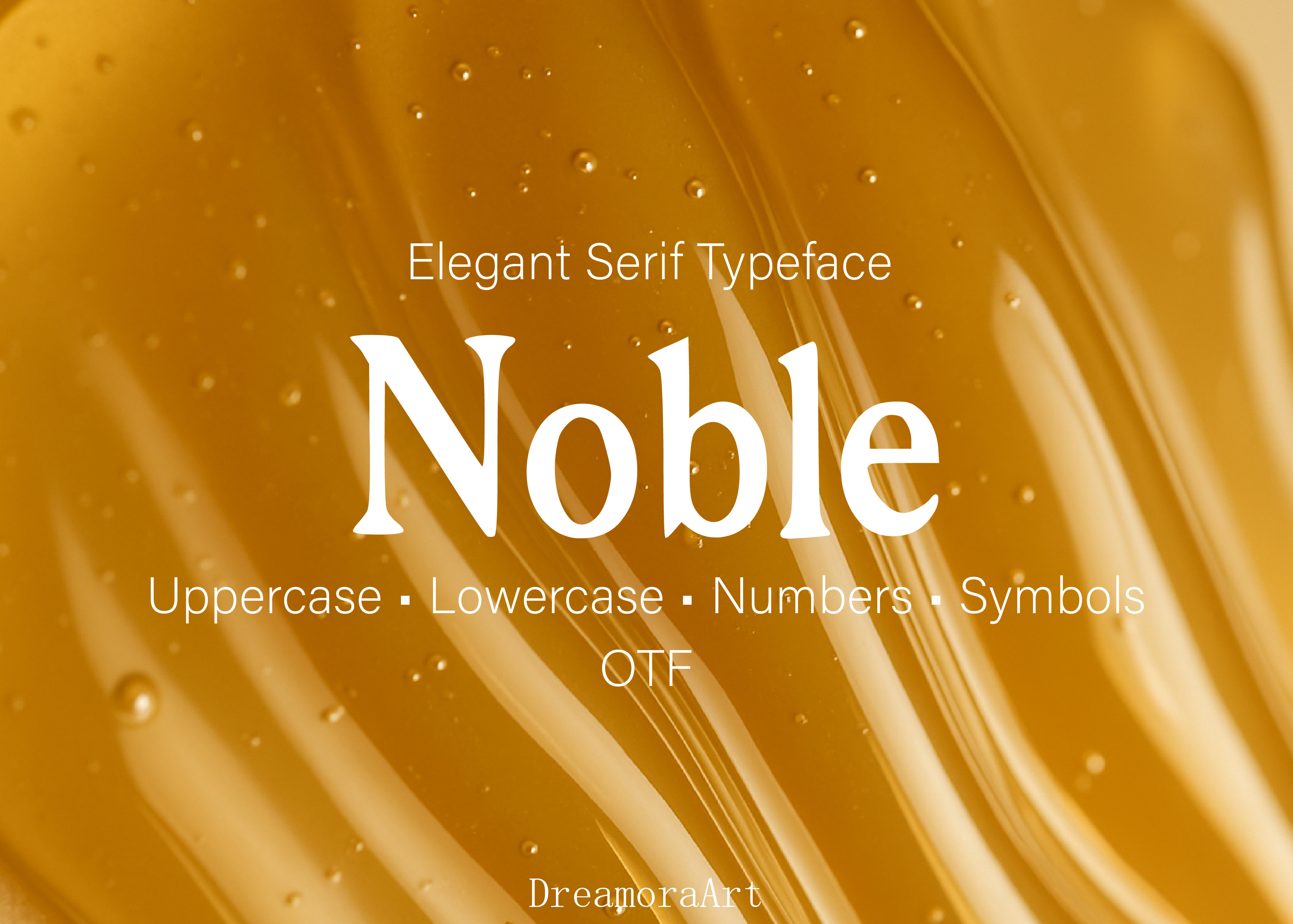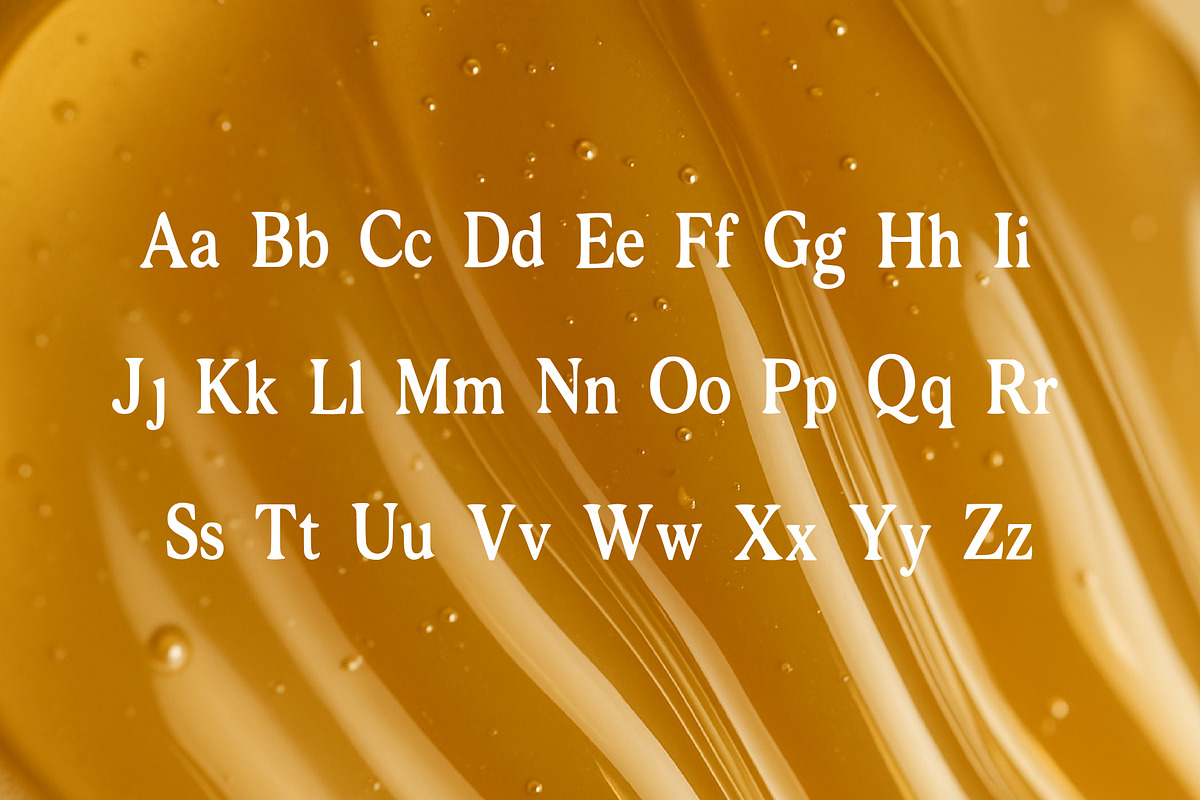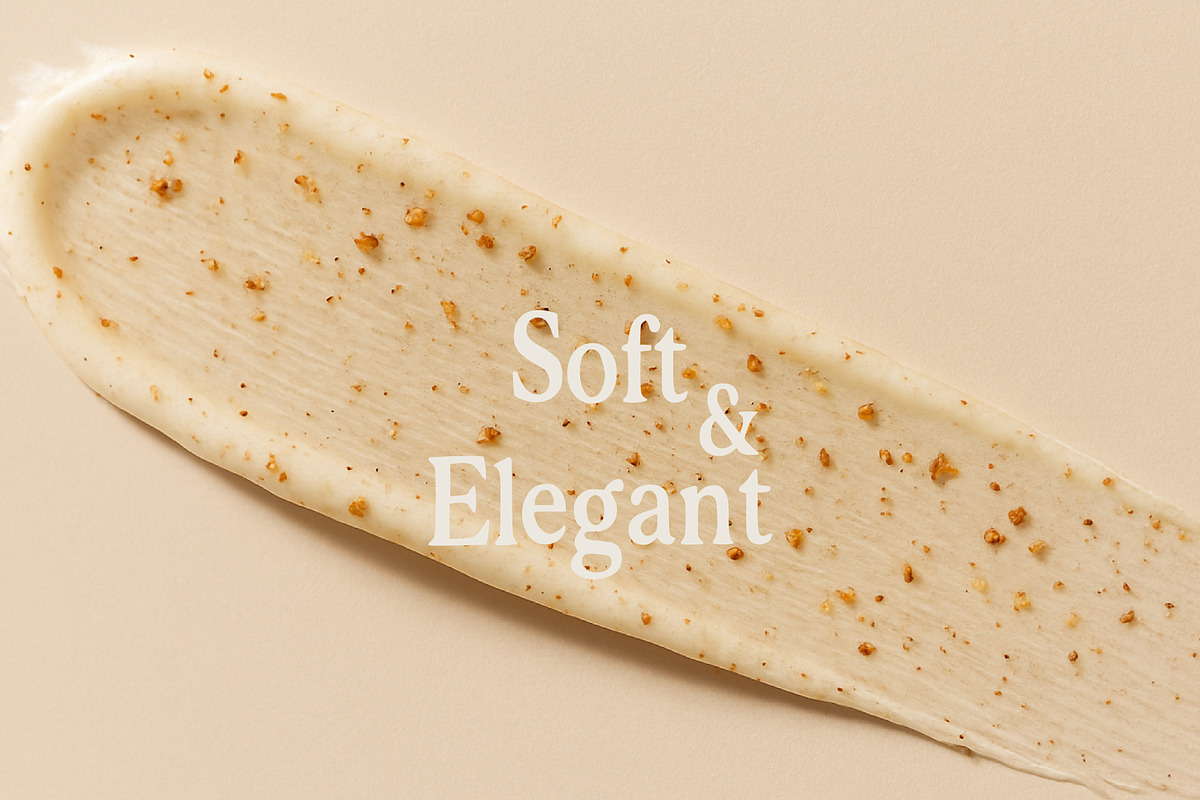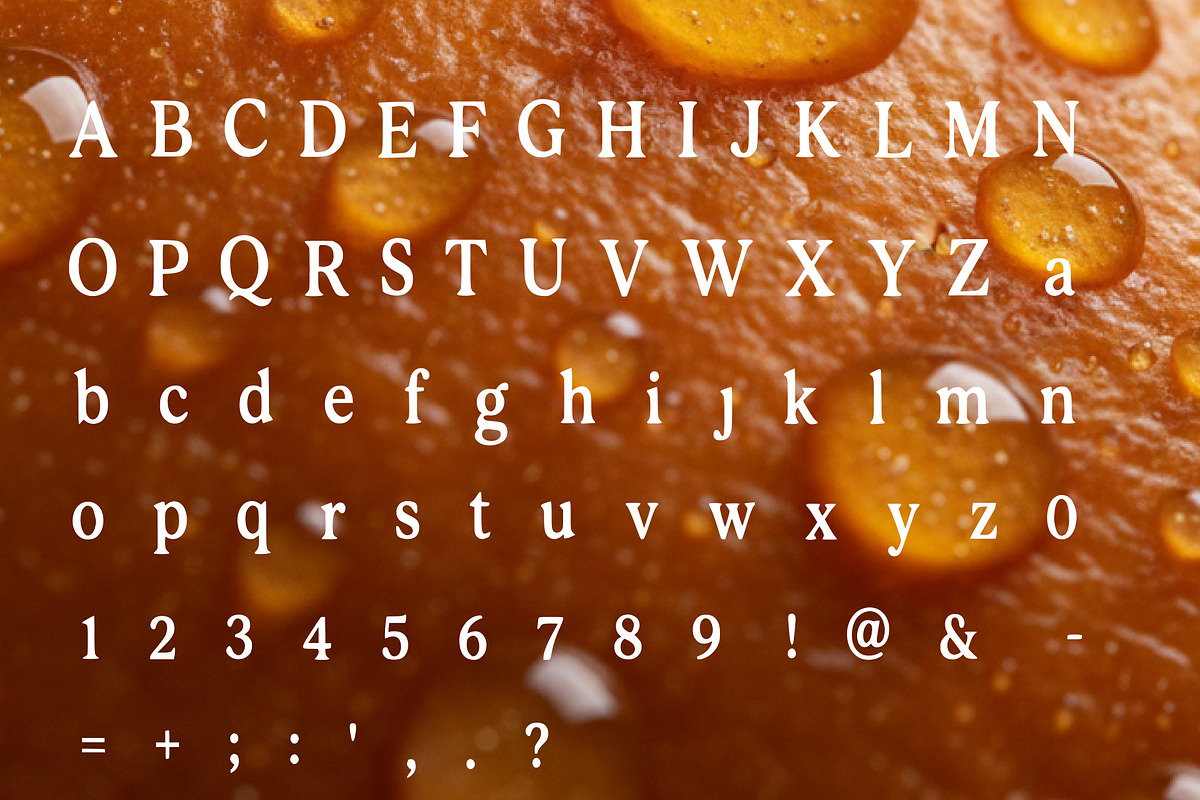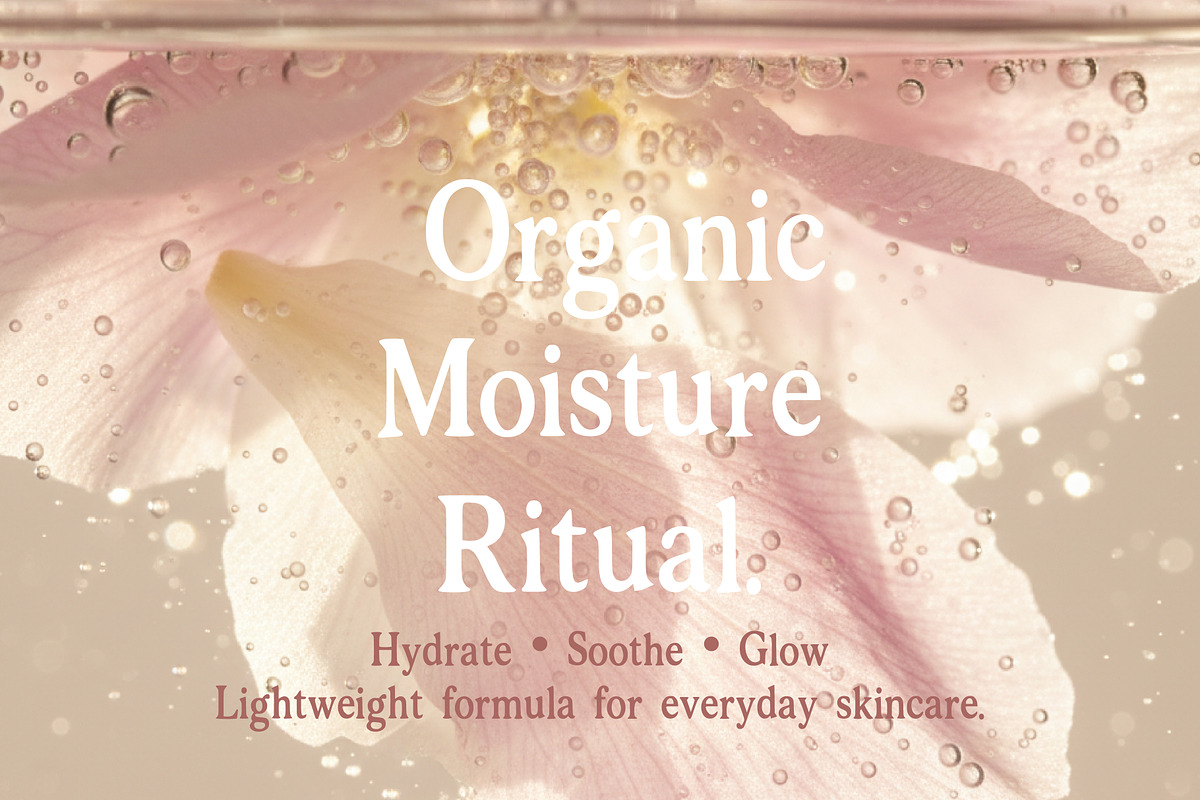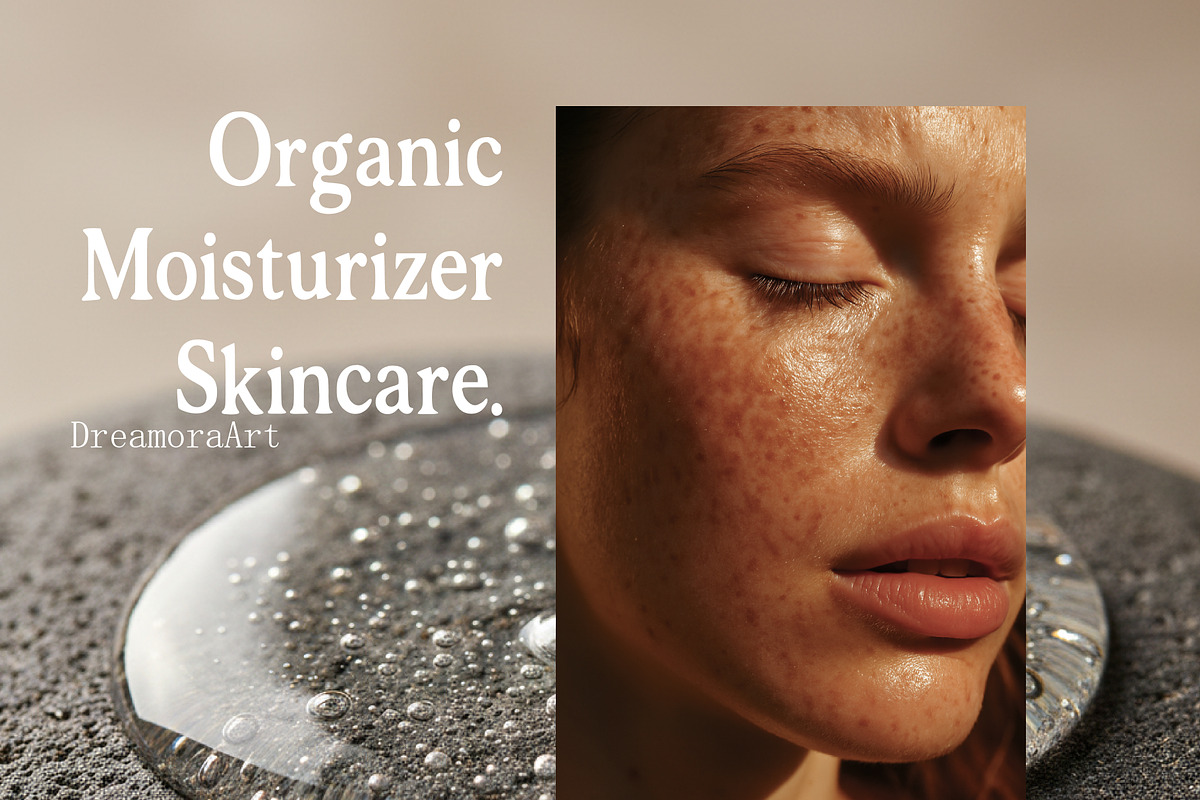
Noble Elegant Organic Serif Typeface
Noble is a clean and elegant serif typeface with a soft, organic feel.
It was created for beauty, skincare and lifestyle projects that need a calm, modern and premium look. The font has smooth curves and balanced letterforms, making it easy to read and pleasant to use.